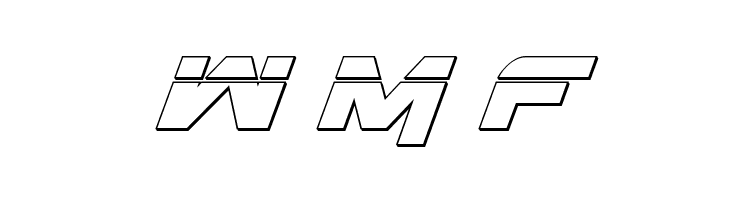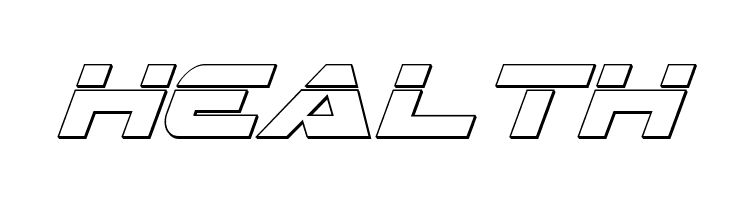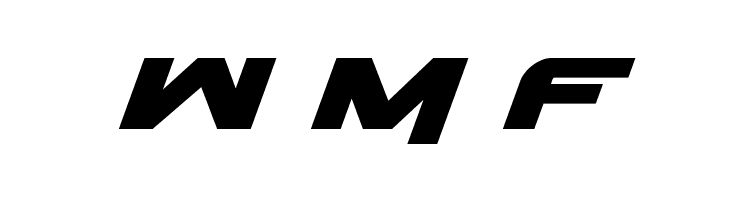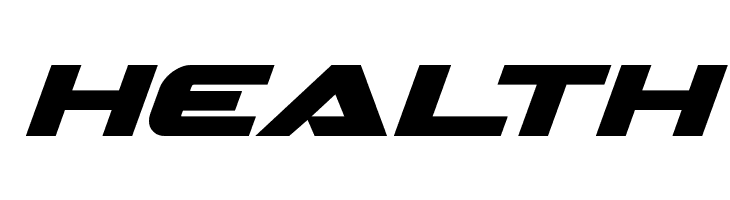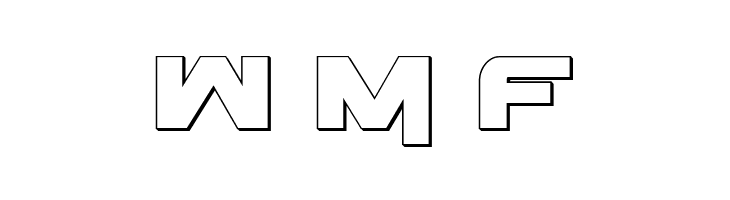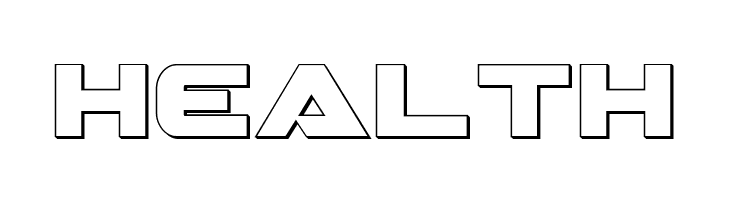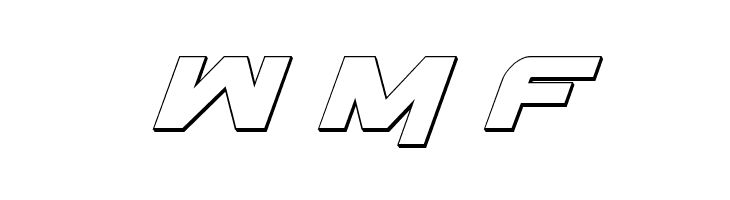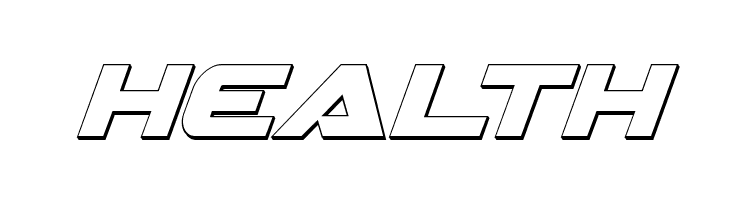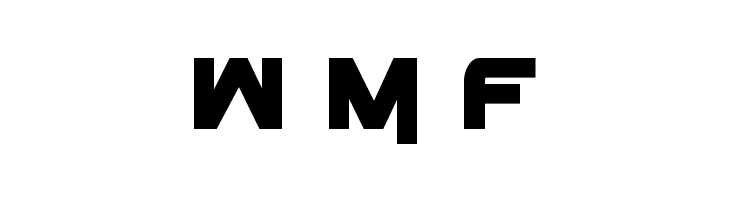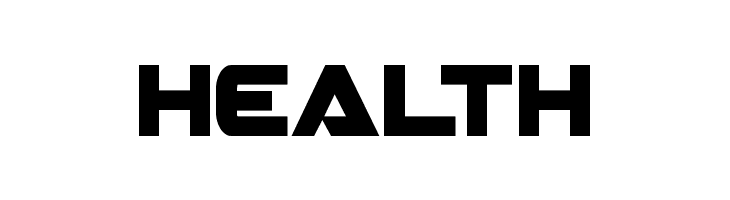
• Gemina 3D Laser Italic
A futuristic 3D laser-cut italic font with bold, geometric shapes.
• Gemina Expanded Italic
A bold, expanded, and italicized font with a modern, dynamic style.
• Gemina 3D Regular
A bold, geometric font with a 3D effect and modern, tech-inspired design.
• Gemina 3D Italic
A bold, 3D italic font with a futuristic and dynamic style.
• Gemina Condensed
A bold, geometric, and futuristic font with a condensed structure.
• Gemina Academy Italic
• Gemina Laser Regular
A futuristic, geometric font with bold, angular characters.
• Gemina Academy Laser Regular
A futuristic, geometric font with bold, angular shapes and a three-dimensional outline.
• Gemina Italic
A bold, italicized font with sharp angles and a modern, dynamic style.
• Gemina Condensed Italic
A bold, condensed italic font with a modern, angular design.